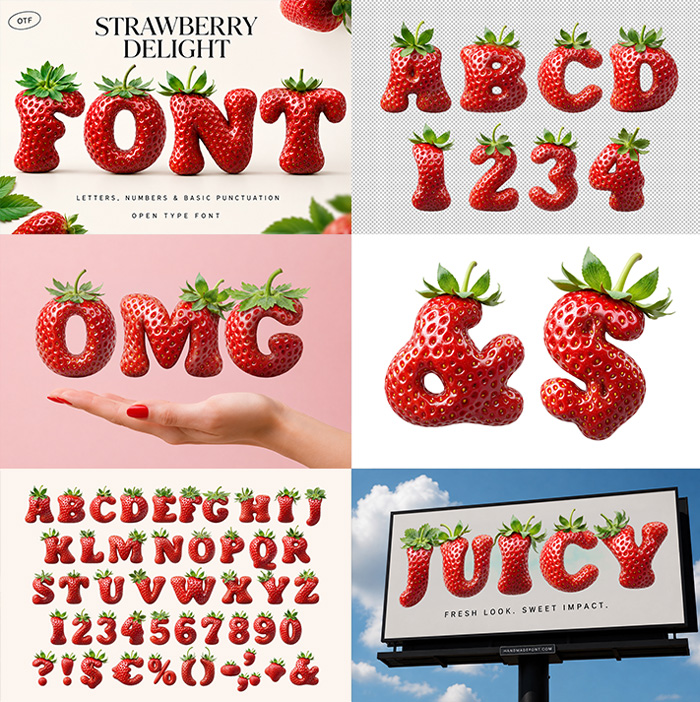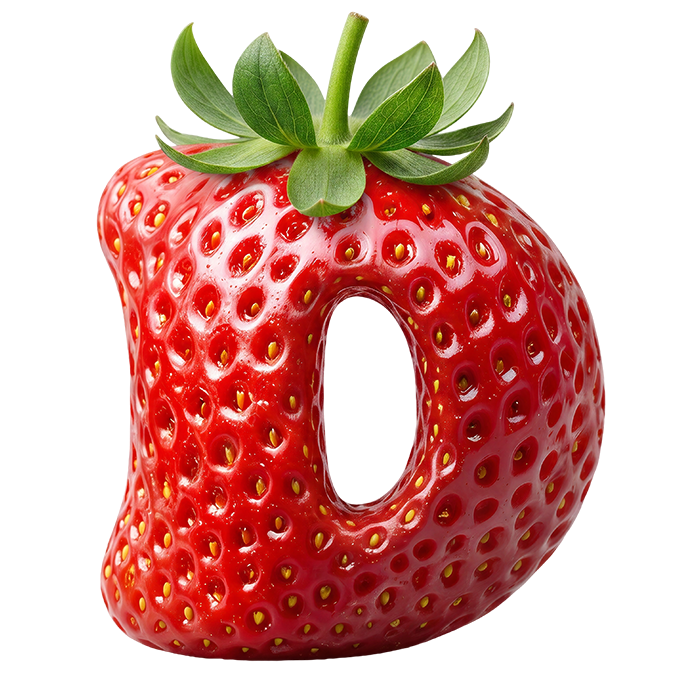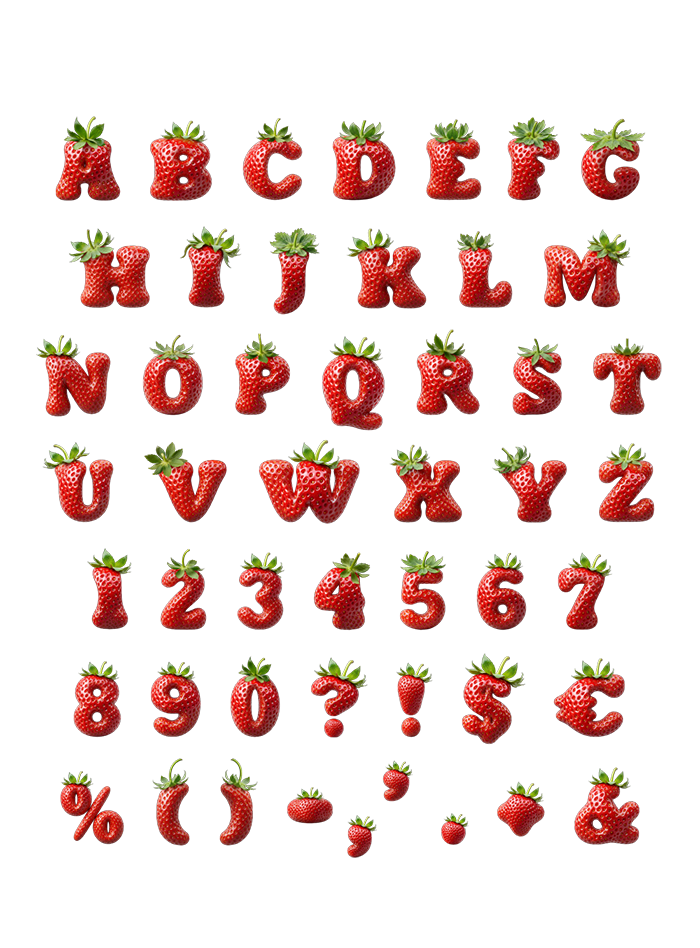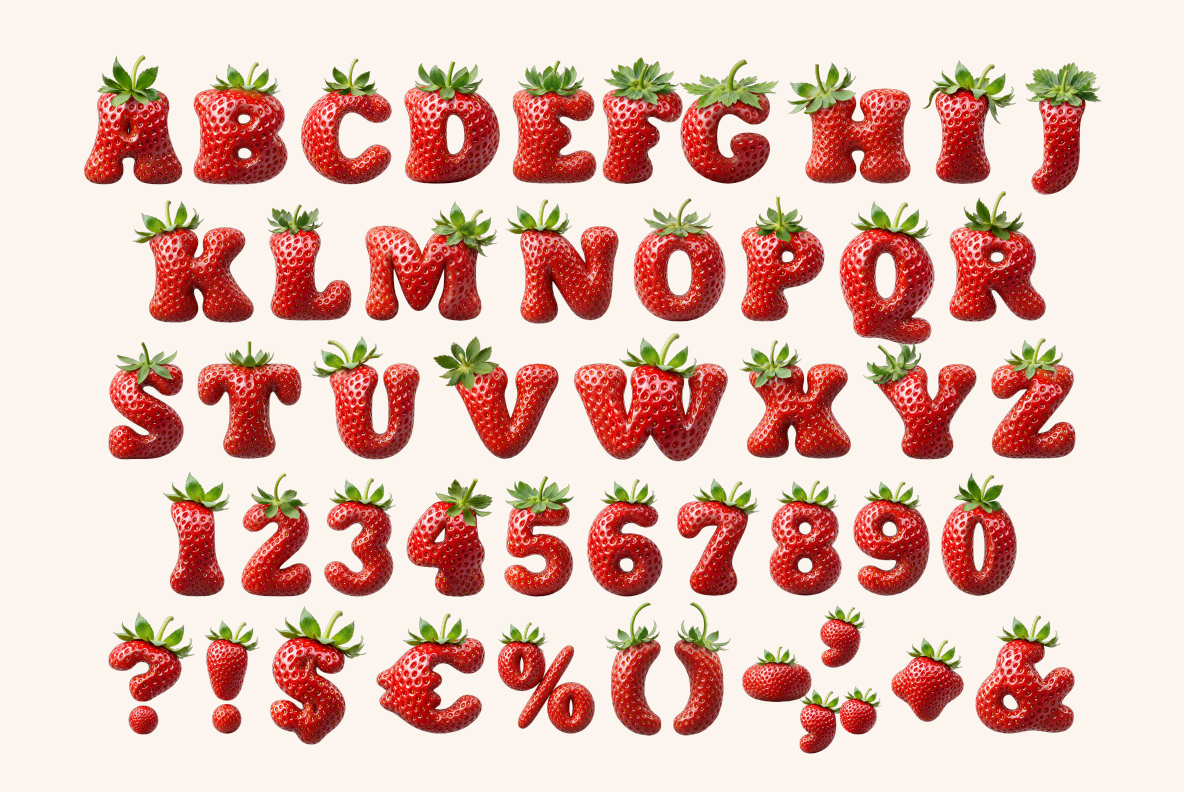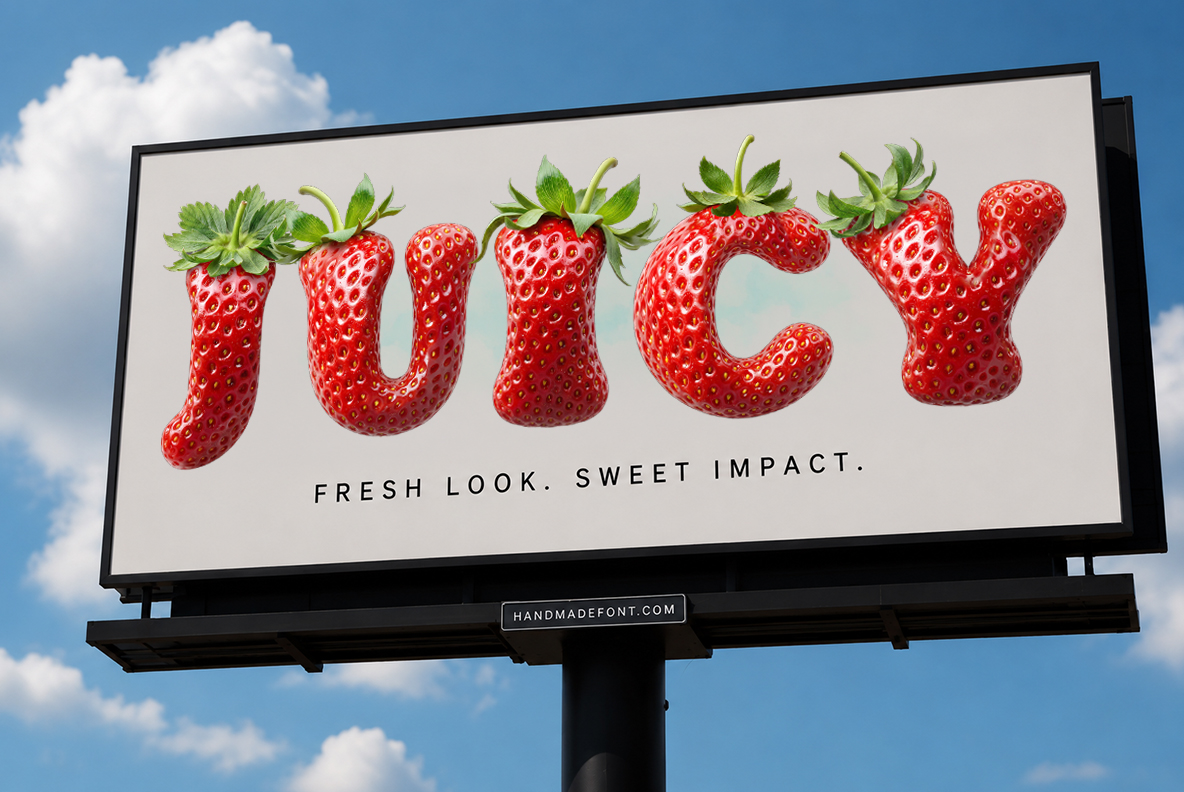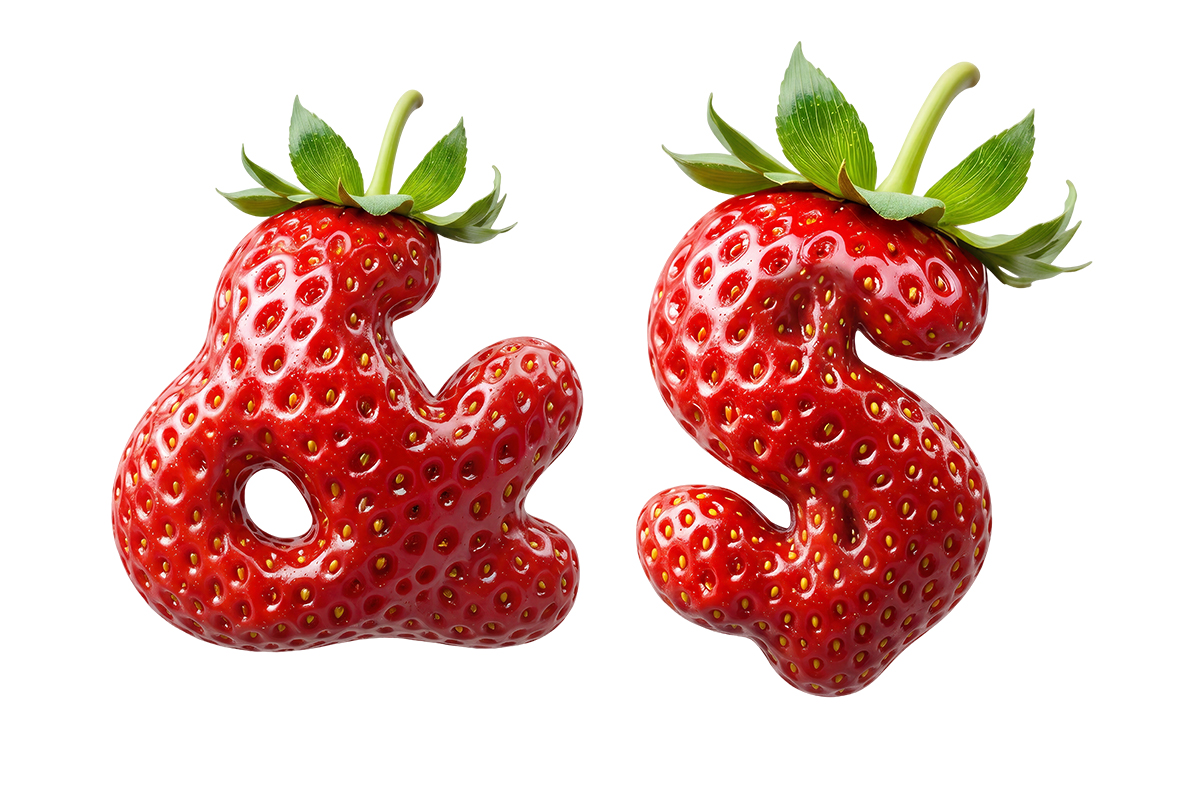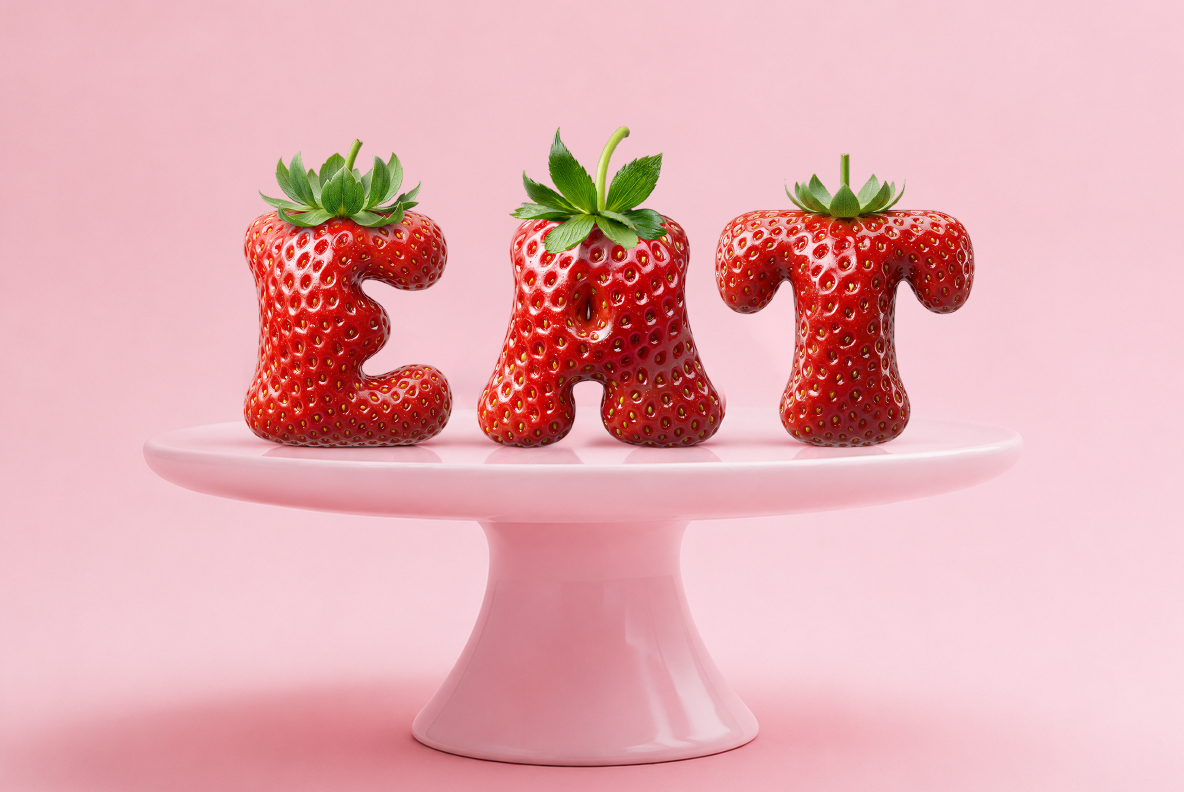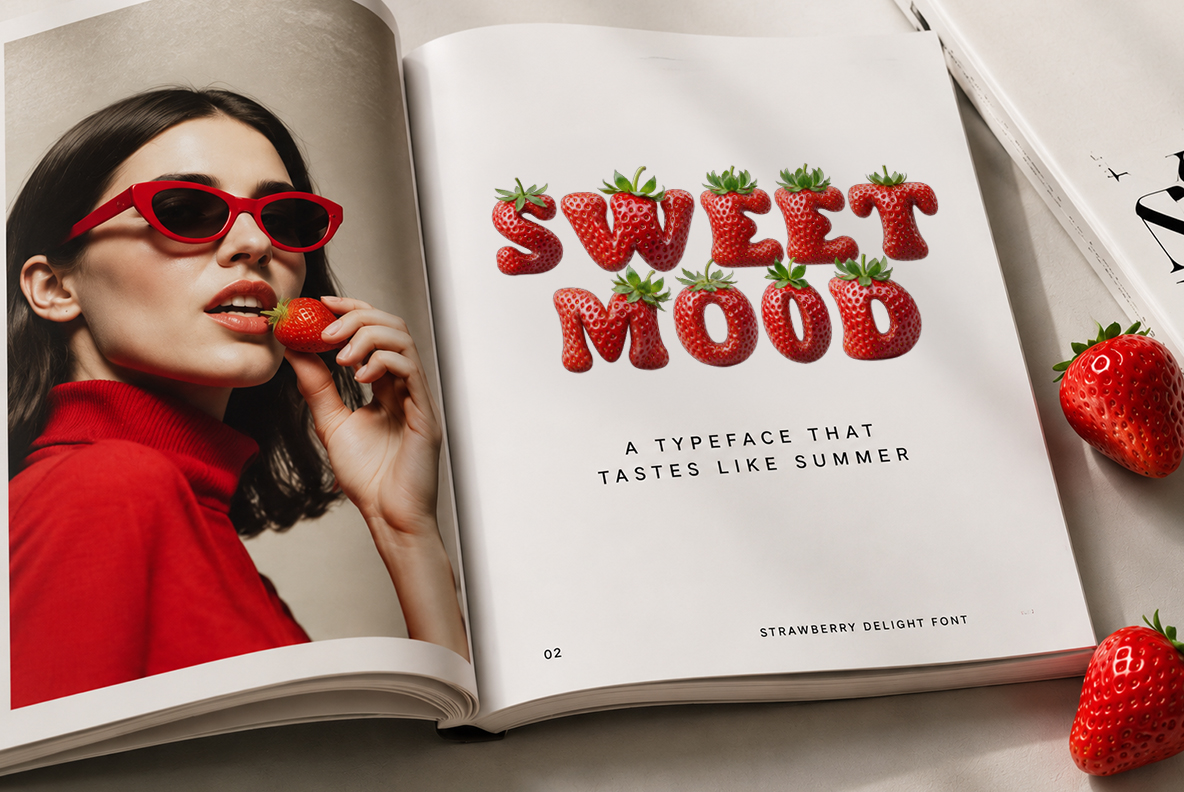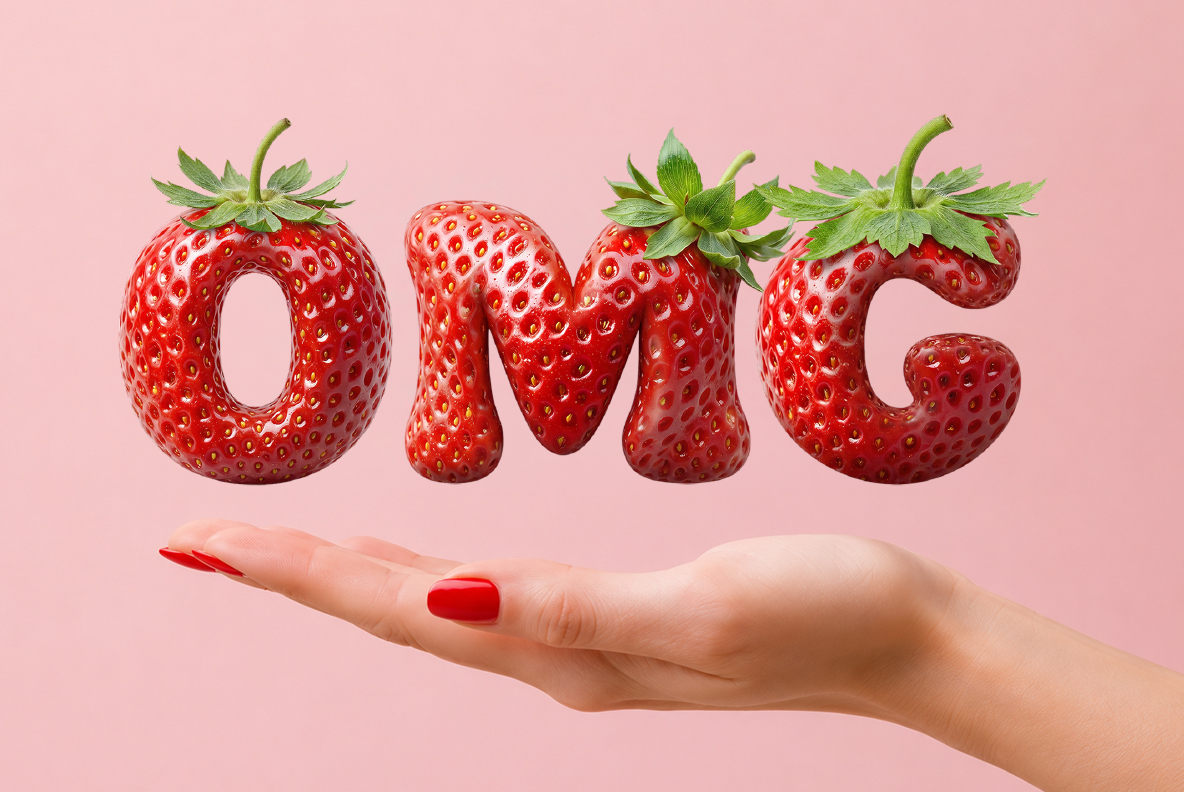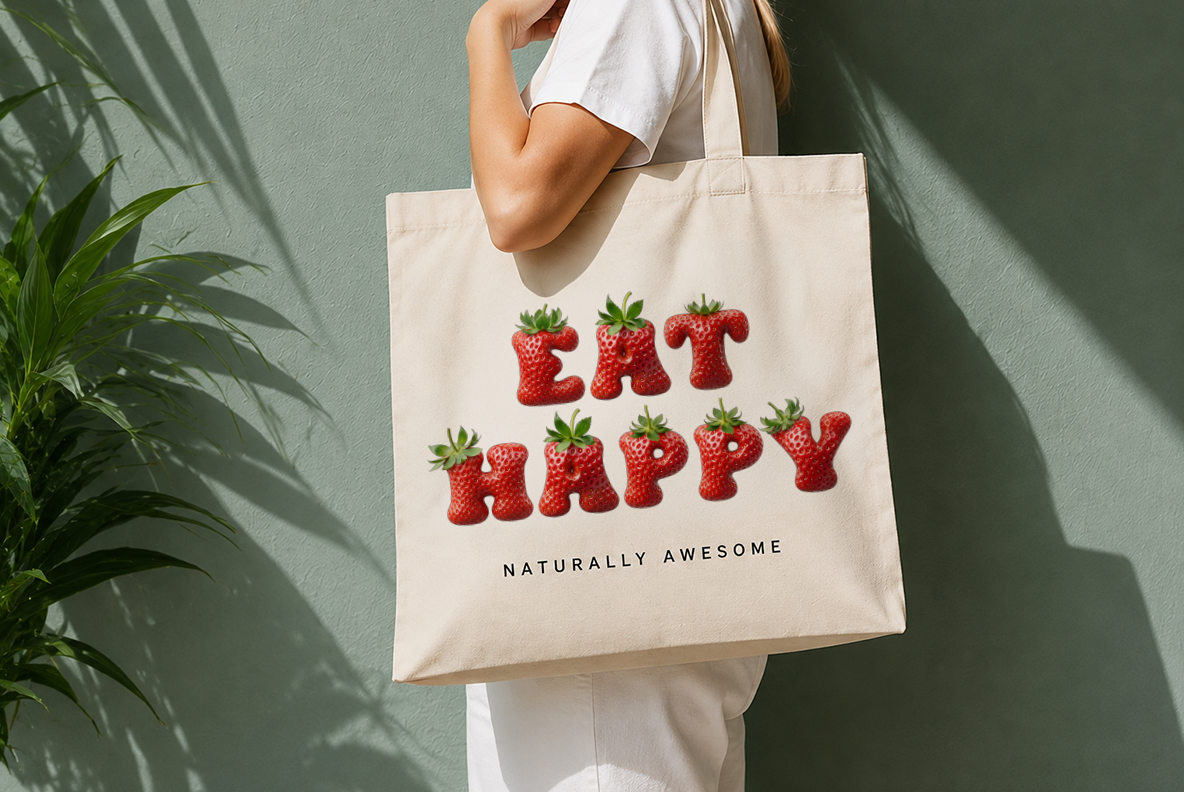
Strawberry Delight Font. Bite into your typography!
Each capital is a whole strawberry, seeds and all, still wearing its fan of green leaves on top. The skin runs from scarlet to deep cherry, with a wet highlight along every stroke. It suits food and drink brands, summer campaigns, dessert menus and anything that should look freshly picked.
Every letter still wears its green crown
Most fruit alphabets stop at the flesh. Here, though, the calyx stays on, so each capital sprouts a fan of green leaves. They lean at different angles, and that keeps a word from looking stamped out. Because the leaves sit above the cap height, headlines gain a jagged top edge. Plan a bit of extra leading, then, and the effect works for you. Naturally, no two crowns match.
Seeds, dimples and that wet red shine
Meanwhile the berry surface does the heavy lifting. Tiny golden seeds sit in their dimples, catching light one by one. Between them the skin runs from bright scarlet to a deeper cherry in the shadows. A soft highlight also rides the top of every stroke, so the letters look freshly rinsed. Even the ampersand and the dollar sign keep their seeds.
Animated preview showing letters of the Strawberry Delight Font being typed.
Strawberry Delight Font on pink, red and cream
Food brands and summer campaigns are the obvious pick, of course. The Strawberry Delight Font appears below on a billboard, a tote, a gift box, a magazine spread and a cake. Pink backgrounds make it sweet, while red on red makes it graphic. Besides that, it suits juice packaging, dessert menus, festival posters and beauty launches. Keep the type big, because the seeds are the point.
Cream cover artwork spelling FONT in berry letters of the Strawberry Delight Font.
Letters, numerals and symbols of the Strawberry Delight Font on cream.
Roadside billboard with a one-word headline set in the Strawberry Delight Font.
Ampersand and dollar sign made of strawberries in the Strawberry Delight Font.
Pink cake stand holding three berry letters from the Strawberry Delight Font.
Open magazine spread with a two-word headline in the Strawberry Delight Font.
Three berry letters of the Strawberry Delight Font floating above an open hand.
Canvas tote bag printed with a two-word phrase in the Strawberry Delight Font.
Pink splash scene spelling FONT in the Strawberry Delight Font.
Pale gift box printed with a short phrase set in the Strawberry Delight Font.
Three berry letters of the Strawberry Delight Font on a red plinth.
White layer cake topped with three berry letters from the Strawberry Delight Font.
Red poster spelling FONT with a white outline in the Strawberry Delight Font.
Letters A to D and numerals 1 to 4 of the Strawberry Delight Font on a transparent background.